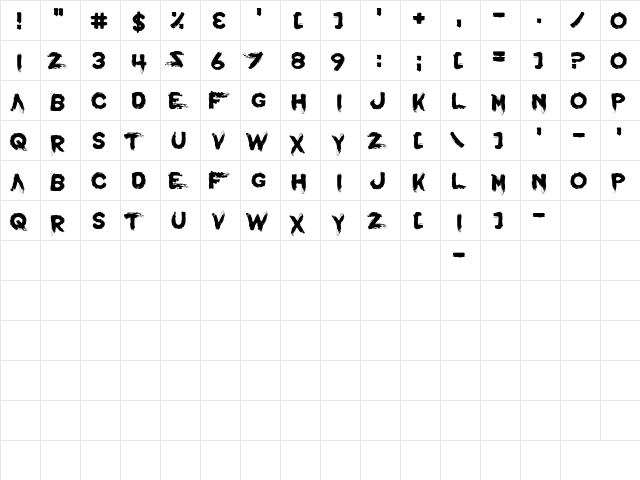
Violet Wasteland Regular
Design Context for Violet Wasteland Typeface
Violet Wasteland is a composed and adaptable typeface that performs quietly and consistently across a wide range of design contexts.